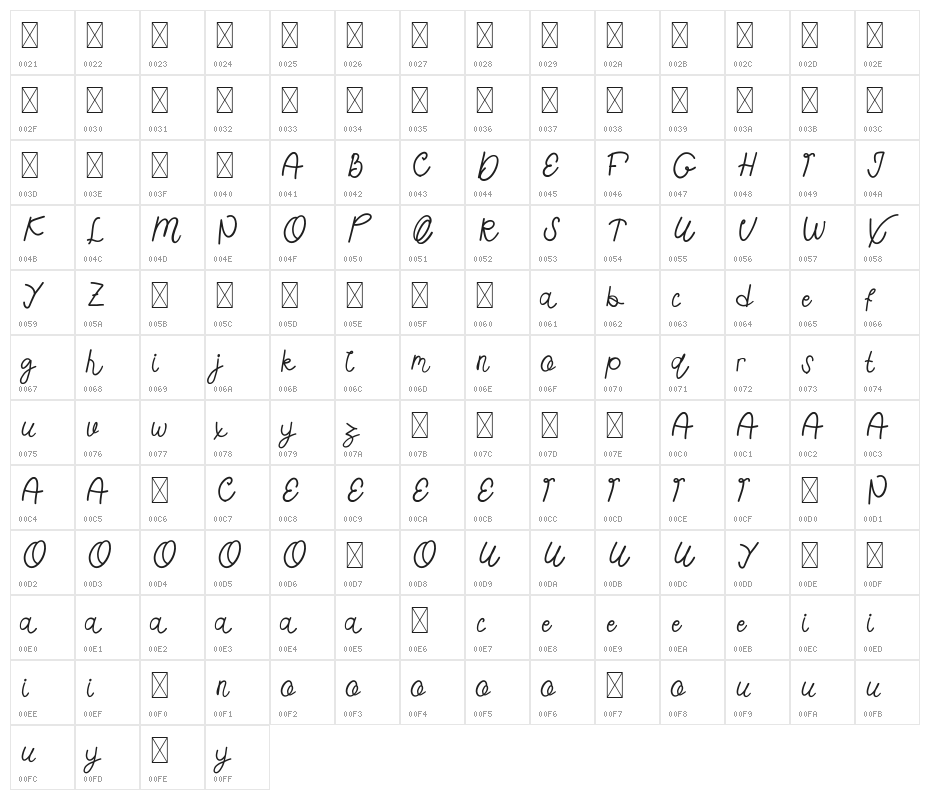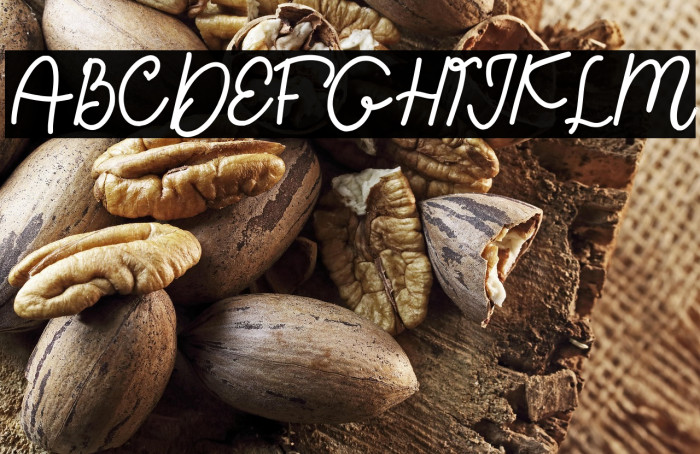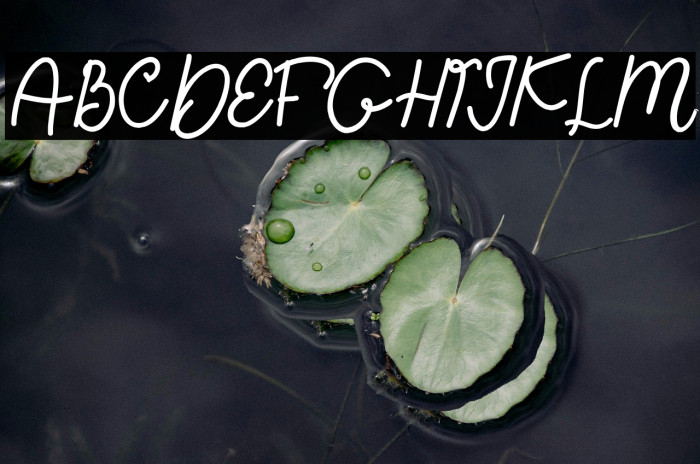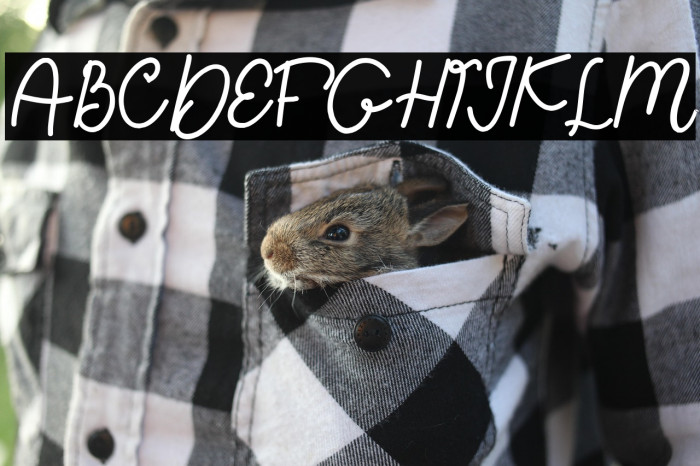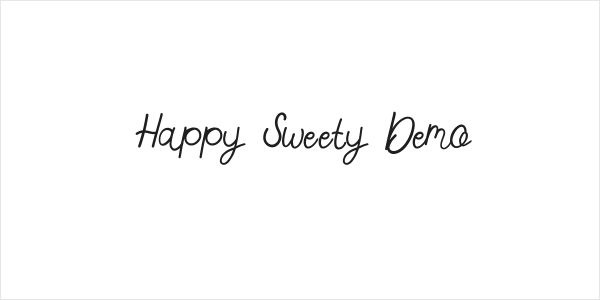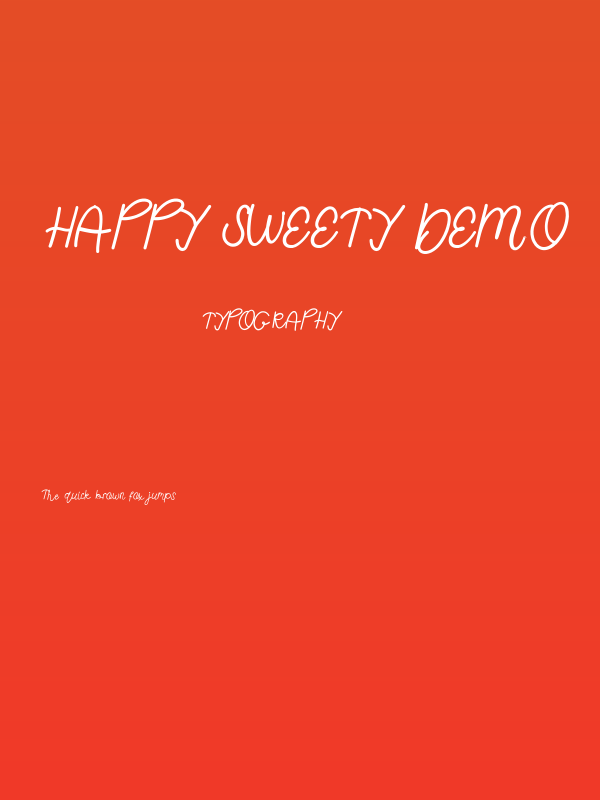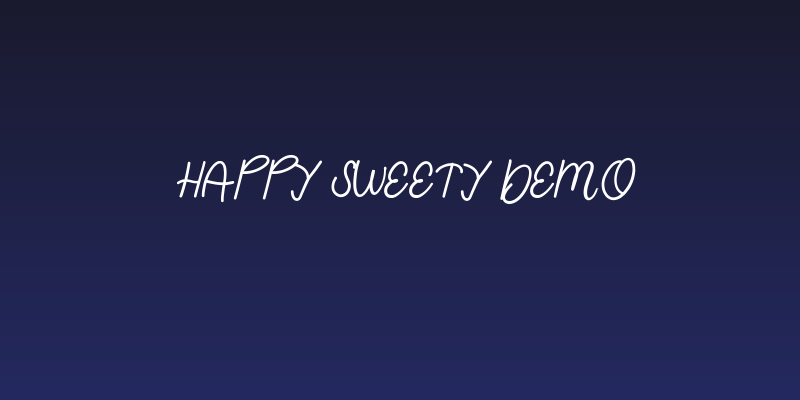
Happy Sweety Demo Font
Happy Sweety Demo Description
This font features a playful and whimsical script style, characterized by its flowing, connected letters that mimic a casual handwriting. The uppercase letters are bold and slightly slanted, giving a sense of movement and energy. The lowercase letters maintain a consistent flow, with some letters featuring loops and curls that add to the font's charm. The overall appearance is friendly and approachable, making it suitable for informal and creative projects. The absence of numbers and special characters suggests a focus on alphabetic expression.
| Proposed Projects | Ideal for greeting cards, invitations, personal branding, and creative projects that require a friendly and informal touch. |